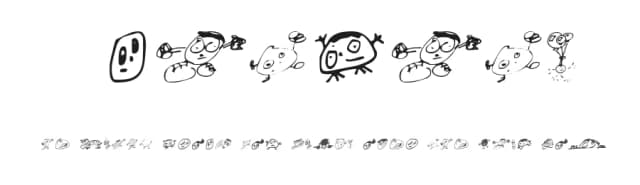
About Funky Muskrat Font
Funky Muskrat is a decorative typeface from Bionic Type, designed in Regular weight with a playful, cartoon sensibility that brings immediate personality to any design. With 124 glyphs and support for 89+ Latin-based languages, this font delivers whimsical character across a broad range of projects and international markets.
The fancy, cartoon styling of Funky Muskrat works beautifully in contexts where you want to signal approachability and humor without sacrificing legibility. Children's book covers and educational materials benefit from its expressive letterforms, while greeting card designs and party invitation suites gain instant charm through its distinctive voice. Branding for playful consumer products, indie game interfaces, and comic strip lettering all find a natural home in its character set. Web designers working on lifestyle blogs or brands targeting younger audiences will find its personality particularly engaging and memorable for their audience.
Available as a free download from this page, Funky Muskrat comes with licence terms specified on the page. Pair it with a clean, neutral sans-serif for body text to let the font's character shine without overwhelming readability. This contrast works especially well when you need the headline to set the tone and mood while supporting text handles the practical work of information hierarchy and visual clarity.
Funky Muskrat Font is a decorative font that shines as a display or heading face. Pair it with a clean sans-serif or serif font for body text β the contrast creates a clear hierarchy while the two styles stay balanced and easy to read.
Funky Muskrat Font
by Bionic Type